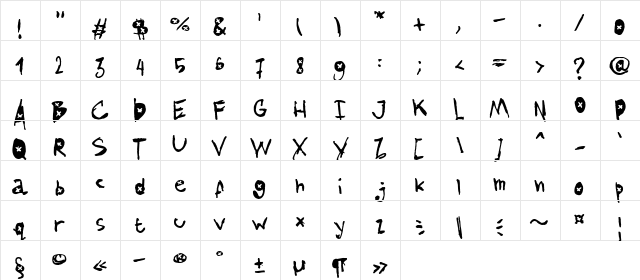
AmazHand_First_Alt_X Regular
Design Context for AmazHand_First_Alt_X Typeface
AmazHand_First_Alt_X flows with the natural rhythm of handwritten lettering, making it ideal for designs that call for warmth and personal expression.
Font Pairing: Combine AmazHand_First_Alt_X with a simple geometric sans for maximum contrast — the tension between flowing curves and clean structure is a classic typographic pairing.
Pro Tip: Use AmazHand_First_Alt_X for short runs of text — names, titles, or taglines. Extended body copy in script faces tires the eye quickly.